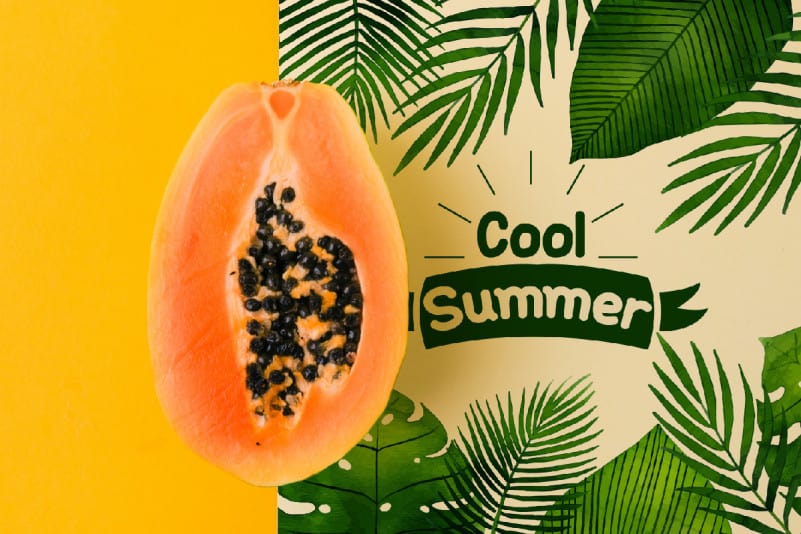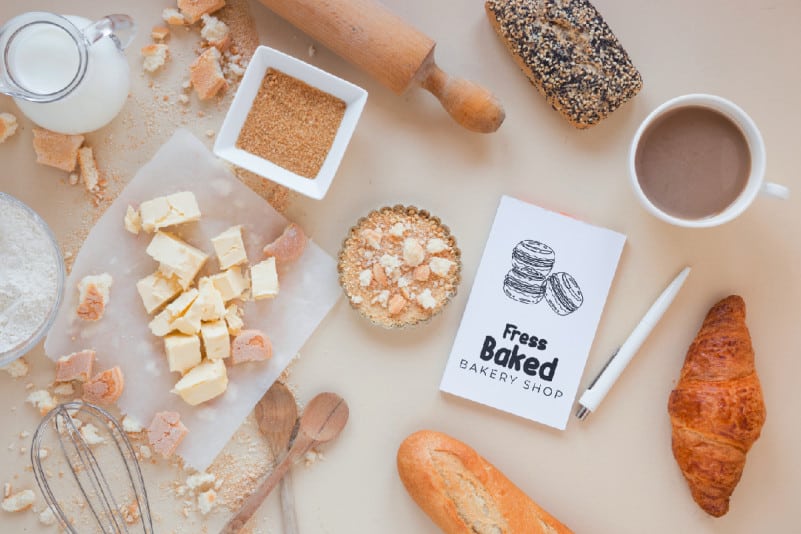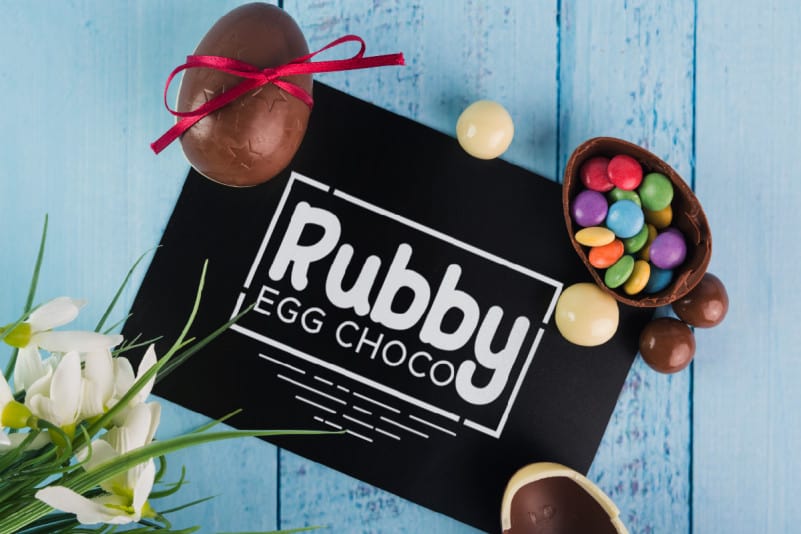
Bubble Lemon Display Font
Bubble Lemon Display Font is a fun sans serif font with curvy shapes. This font is crafted carefully whether you’re working on a birthday invite or creating the next generation of superheroes, this font is the perfect font for you! Fresh and hip, while never taking itself too seriously. Retro and familiar, yet current and approachable. It’s like Comic Sans’ cooler younger brother without the social stigma. Carefully designed to work together in harmony and This one should make your designs instantly cool.
Bubble Lemon Display Font includes full set of Uppercase and Lowercase Basic Characters, Numerals and Punctuation. Also it contains ligatures to make it flowless characters to perfectly make awesome look that add more aesthetic fonts to perfect your extraordinary project. Bubble Lemon Font will be great for Use it for any project that needs a cheerful and playful look! Perfect for labels, quotes, posters, DIY projects, branding, packaging, greeting cards, websites, photography kids, window art, scrapbooking, tags and so much more!